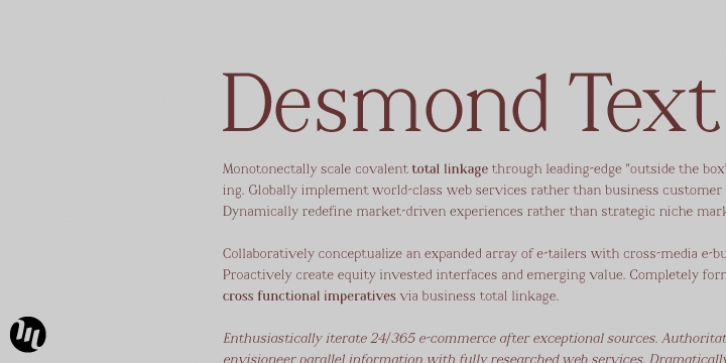
Publisher: MADType
Desmond Text is a highly readable and quirky serif face with a tall x-height and glyphic serifs.
It is easy to read small, but with pleasing details that shine at display sizes.